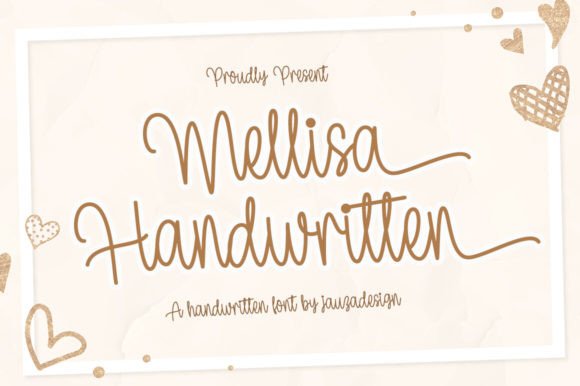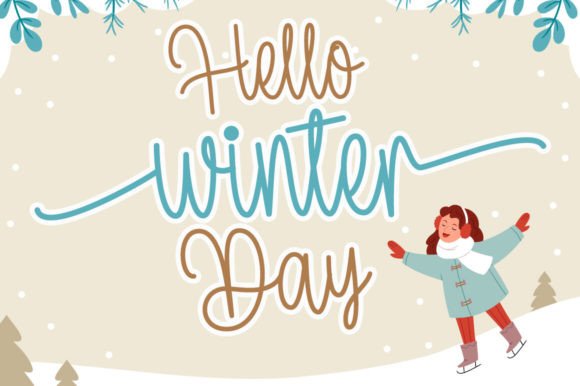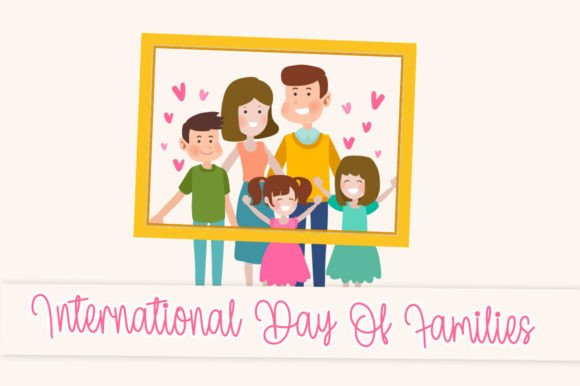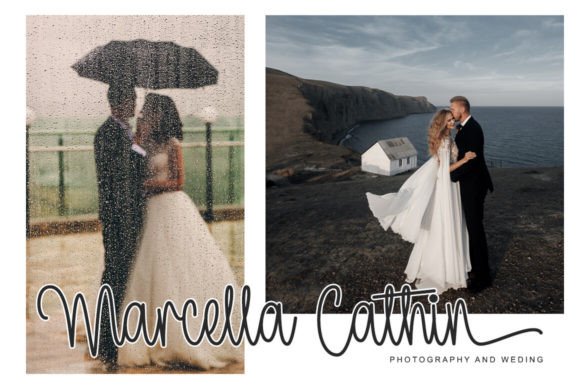
Mellisa Handwritten Font
About the Mellisa Handwritten Font
Introducing the Mellisa Handwritten Font, a beautifully crafted typeface designed to elevate your creative projects. Mellisa Handwritten is a sweet and friendly handwritten font. Its natural and unique style makes it incredibly fitting to a large pool of designs. You can successfully use it for style quotes, wedding cards, magazines, fashion, creative branding, album covers, book covers, movie titles, and so many more. Mellisa handwritten is PUA encoded which means you can access all the glyphs and ligatures with ease!
Mellisa Handwritten’s friendly, informal style excels in headlines, short text blocks on branding materials, and social media graphics. It works particularly well for projects emphasizing warmth and approachability, such as invitations, greeting cards, and children’s books. However, its less-structured nature makes it unsuitable for body text or UI elements requiring high readability.
Consider pairing Mellisa with a clean sans-serif like Lato for a balanced contrast, or a classic serif like Playfair Display for a more sophisticated feel. For a playful touch, a geometric sans-serif like Montserrat could also complement its organic curves. Avoid pairing it with other highly decorative or overly stylistic fonts to prevent visual clutter.
The overall personality of Mellisa is undeniably friendly and approachable, making it ideal for brands targeting a younger demographic or promoting a lighthearted, optimistic message. Its charming character adds a personal touch without overwhelming the design.
Mellisa Handwritten Font Usage Examples
Mellisa Handwritten Font Example